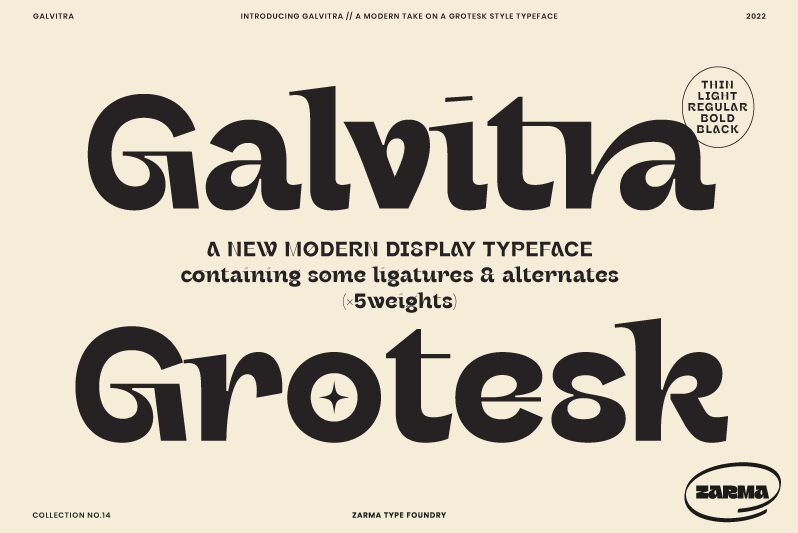
Galvitra, a bold typeface by Zarma Type Foundry, exudes an air of confidence and modernity. With its sleek and clean lines, Galvitra is perfect for creating eye-catching headlines or attention-grabbing logos. Its bold weight makes it ideal for projects that require strong visual impact, such as magazine covers, branding materials, or packaging designs. Whether you're designing a cutting-edge tech startup's website or a trendy fashion magazine spread, Galvitra's grotesk style will add a touch of sophistication and professionalism to your creations. Elevate your design game with Galvitra and leave a lasting impression on your audience.
Galvitra